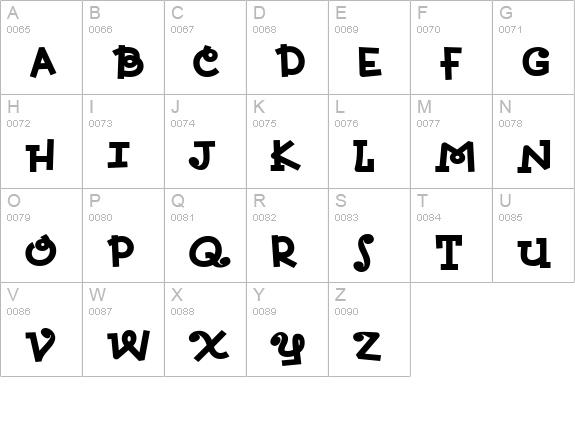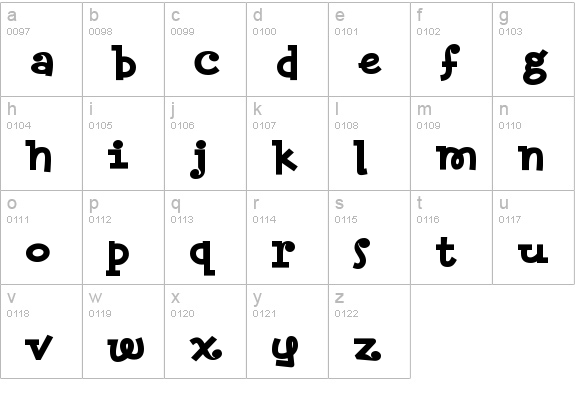
RetrofitBold Font Details
RetrofitBold is a stunning and bold font that is perfect for making a statement. With its strong and powerful appearance, this font is sure to grab attention and add a touch of sophistication to any design project. Featuring clean lines and a distinct, modern style, RetrofitBold is versatile and can be used in a variety of contexts. Whether you're designing a logo, creating a bold headline, or even crafting a stylish poster, this font will elevate your work to the next level. One of the best features of RetrofitBold is that it is freely available to download at FontsMarket.com. This means that you can easily access this amazing font without any cost. It's a fantastic opportunity to add a high-quality and unique font to your collection, without breaking the bank. With its bold and impactful design, RetrofitBold is sure to leave a lasting impression on your audience. So why wait? Download it now and start incorporating this stunning font into your designs to create something truly extraordinary.